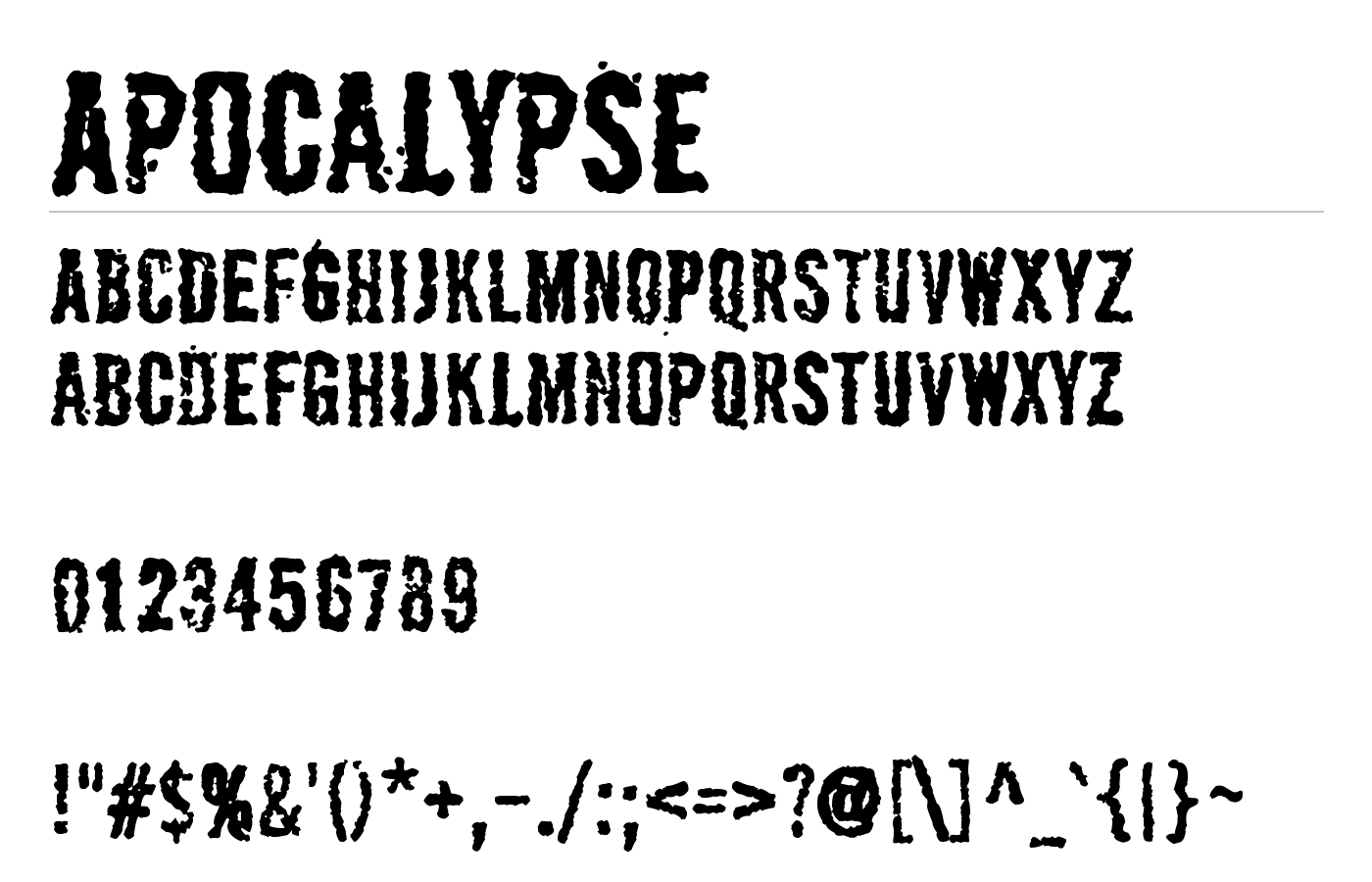
Apocalypse Font is a bold, condensed sans serif with a distressed, rough texture that evokes a gritty, rugged vibe. Its uneven edges and heavy weight create a raw, impactful look, perfect for designs seeking an edgy, post-apocalyptic or horror-themed feel. This font works best for striking headlines, posters, and branding where a strong, dramatic statement is needed.
Apocalypse Font
About Apocalypse Font
| Font family | Apocalypse Font |